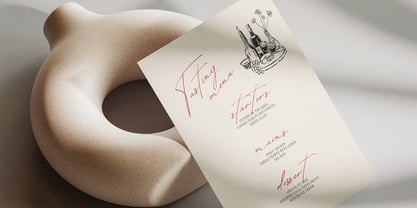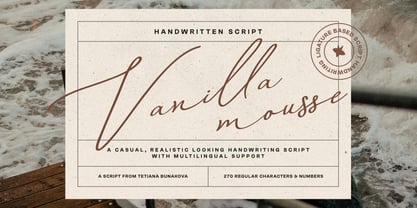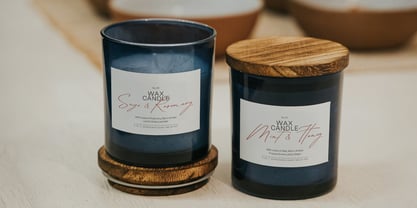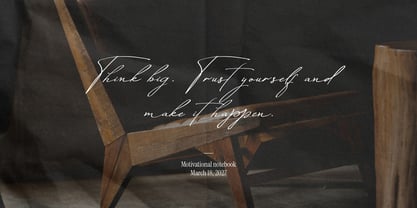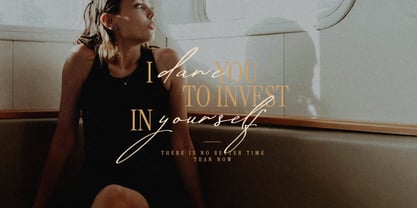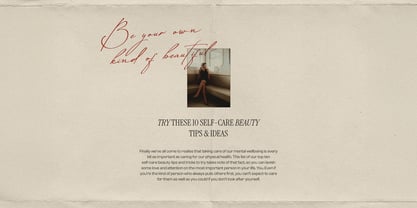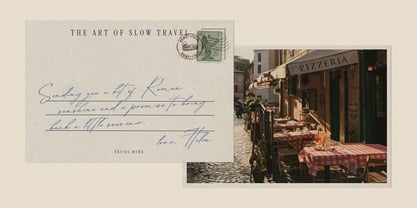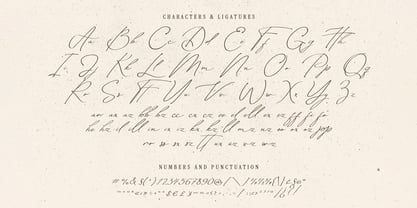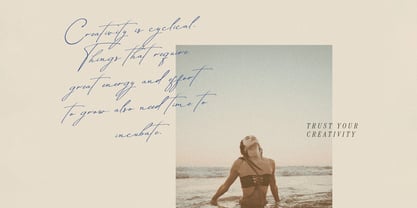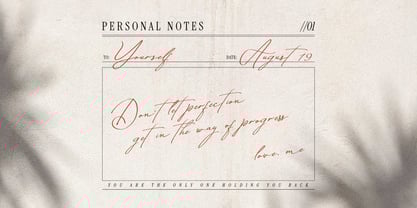
Vanilla Mousse
by Tetiana Bunakova
The Vanilla Mousse Font Family was designed by Tetiana Bunakova and published by Tetiana Bunakova. Vanilla Mousse contains 1 styles. More about this family
Meet Vanilla Mousse Script – a beautifully natural handwritten font with OpenType ligatures, designed to add elegance to your next creative project. Ideal for both business and personal use, it’s a versatile choice for crafting packaging designs, brand identities, art posters, invitations, restaurant menus, and much more.